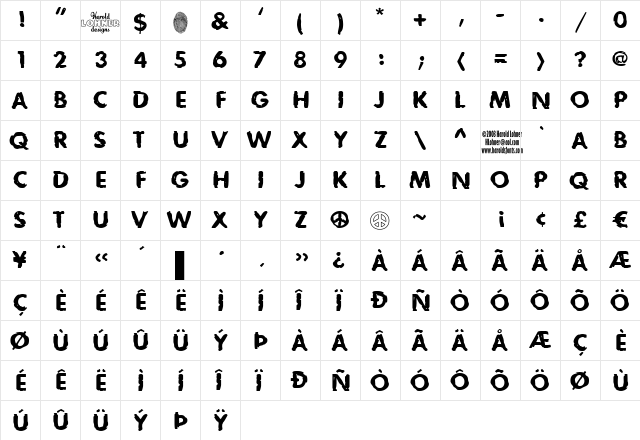
Rough DraftLoose Fill Regular
Design Context for Rough DraftLoose Fill Typeface
Rough DraftLoose Fill trades polish for personality, using distressed and eroded forms to bring grit and attitude to creative work.
A strong fit for alternative music projects, graffiti-adjacent design, and anything that deliberately resists polish.
Pro Tip: Use Rough DraftLoose Fill at larger sizes where the texture and irregularity of each letterform can be clearly seen — it loses its character at small sizes.